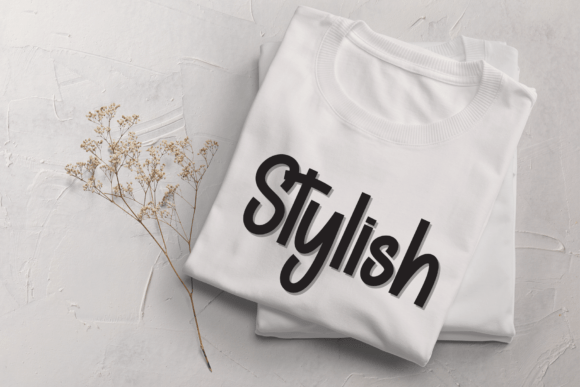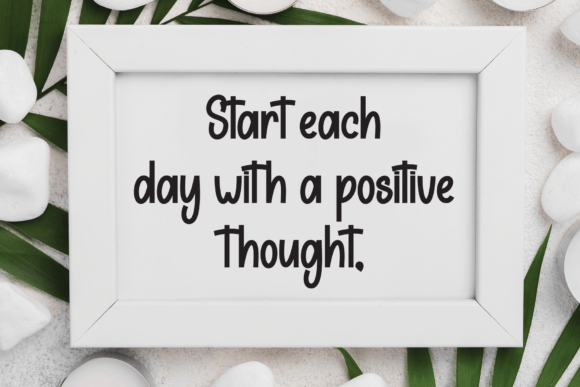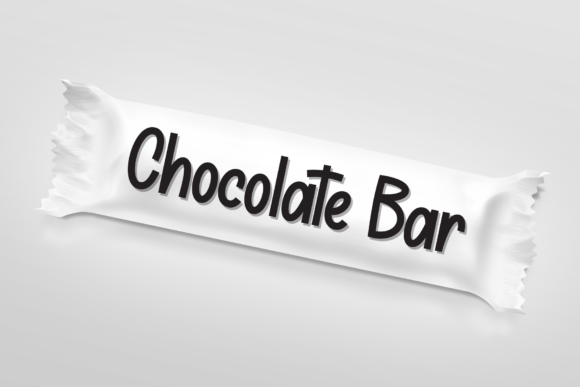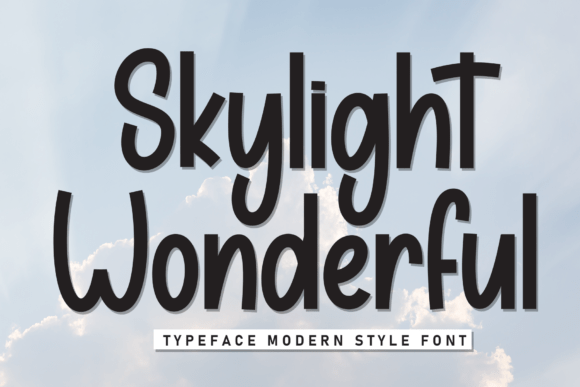
Introduction to Skylight Wonderful Font
Skylight Wonderful is a modern style typeface that radiates cheerful energy and robust, cartoonish charm.
This font features chunky, rounded, and slightly bouncy letterforms with a casual, monoline weight, reminiscent of happy marker pen lettering The exaggerated curve of certain characters adds to their whimsical, playful personality.
Key Features of Skylight Wonderful Font